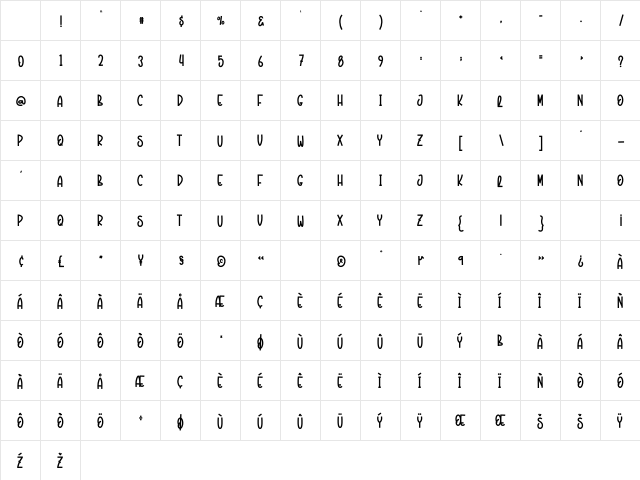
Snow Paradise Regular Free Font
Snow Paradise Regular
Design Context for Snow Paradise
Snow Paradise is a composed and adaptable typeface that performs quietly and consistently across a wide range of design contexts.